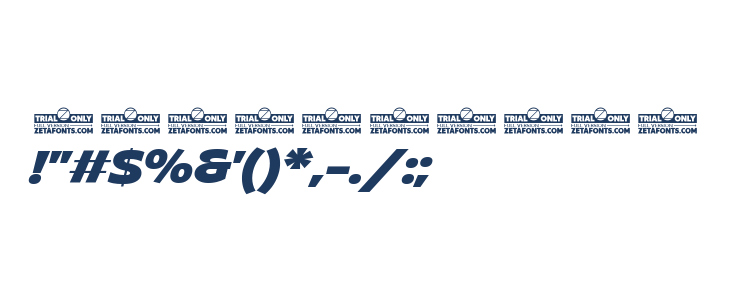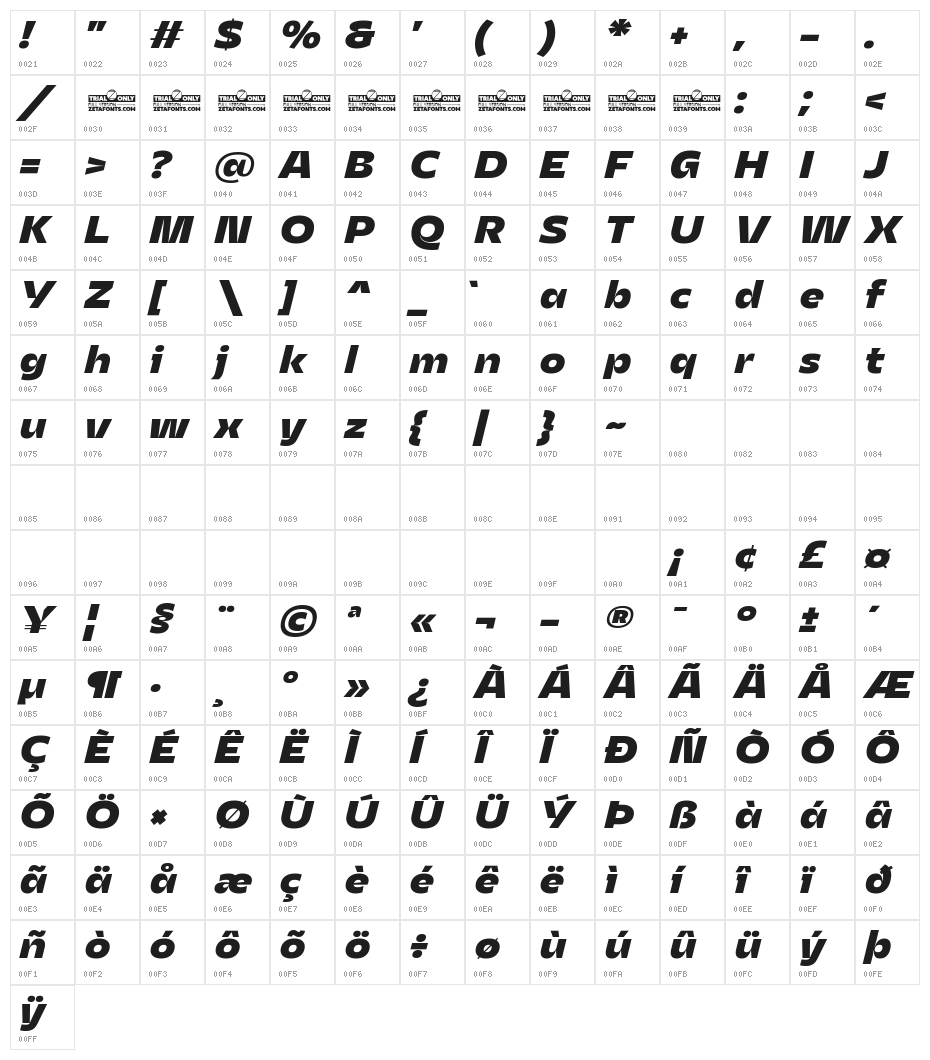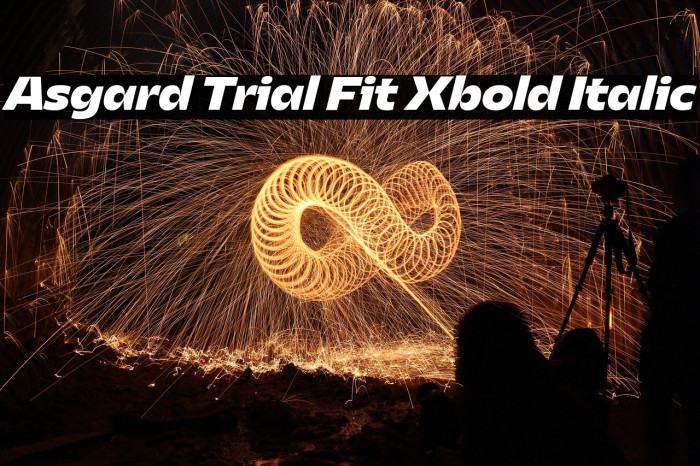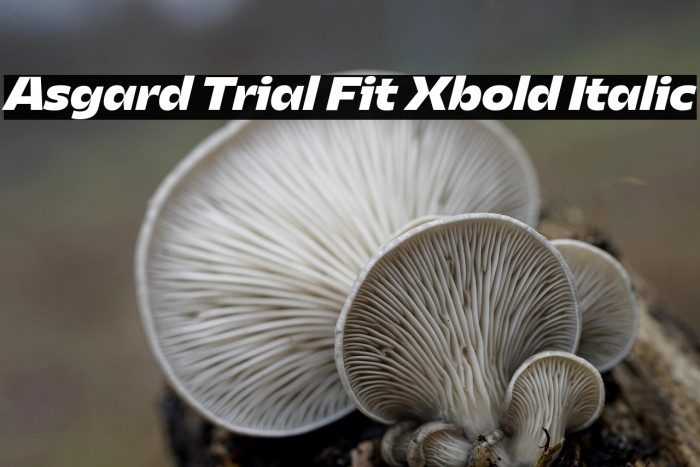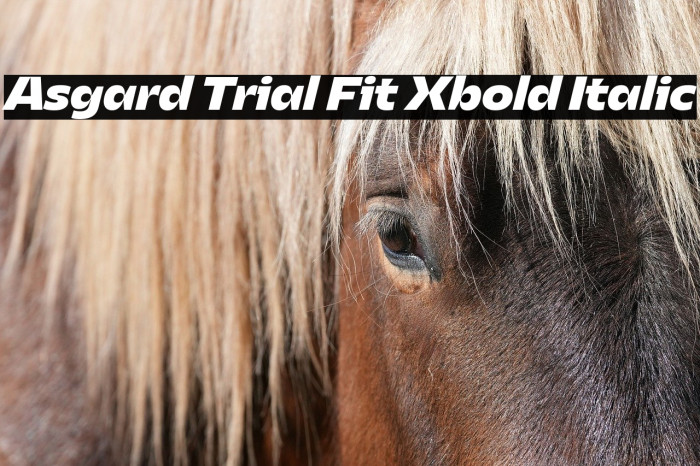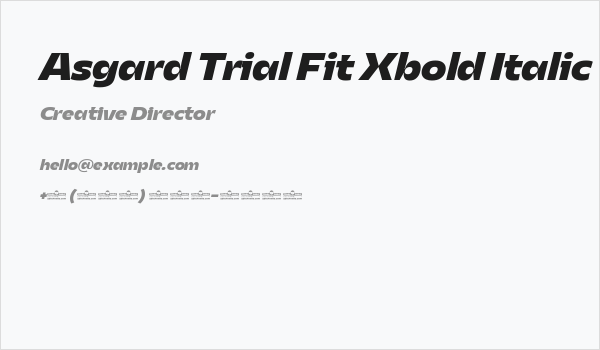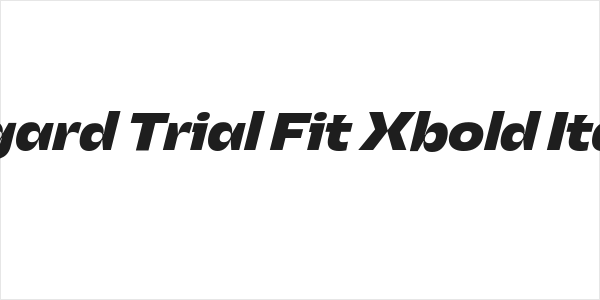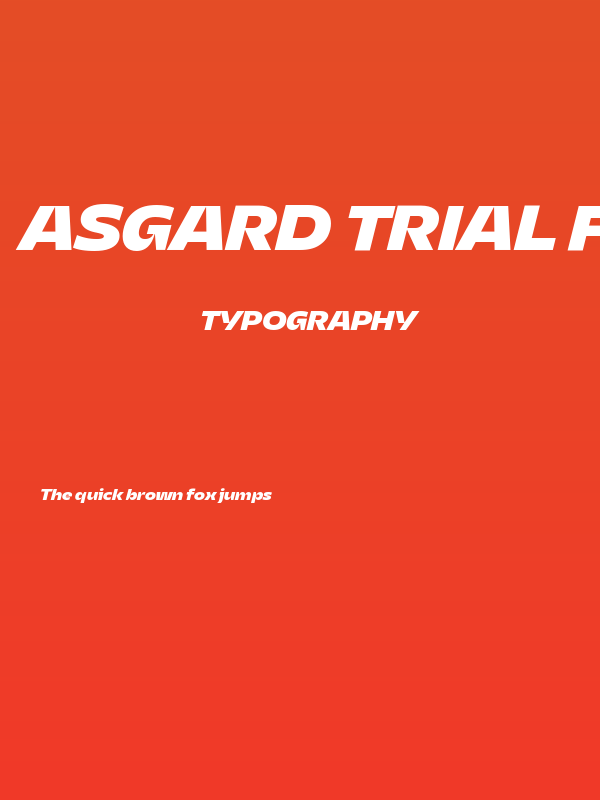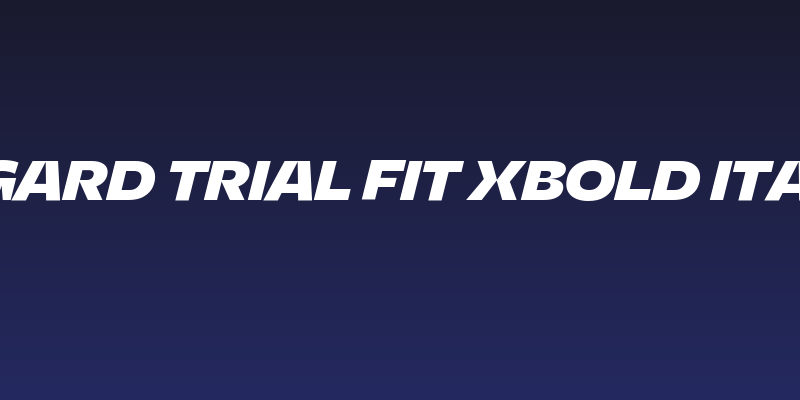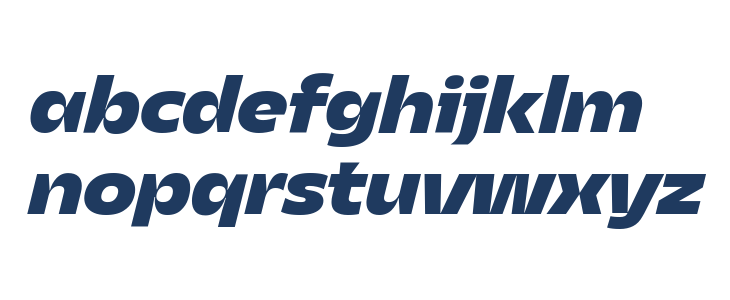
Asgard Trial Fit Xbold Italic Font
Asgard Trial Fit Xbold Italic Description
This font exhibits a bold and dynamic style with a strong italic slant, giving it a sense of motion and energy. The characters are robust and impactful, with thick strokes that convey strength and confidence. The uppercase and lowercase letters maintain a consistent design, with smooth curves and sharp angles that enhance readability. The numerals and special characters are equally bold, ensuring uniformity across all text elements. This font is ideal for making a statement, with its striking appearance and modern aesthetic.
| Proposed Projects | Ideal for branding, advertising, sports team logos, and dynamic headlines. |